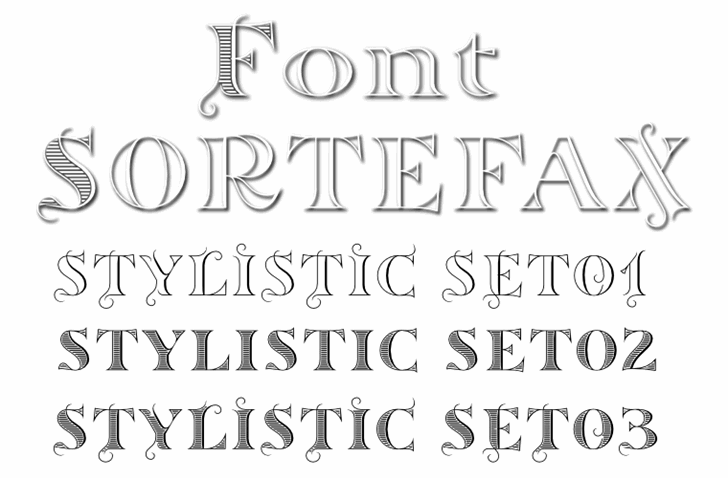
Free Sortefax Font
Today we're glad to feature this free sortefax font. Font Space has created this amazing and beautiful font. This is absolutely fancy font so you can easily make world-class designs.